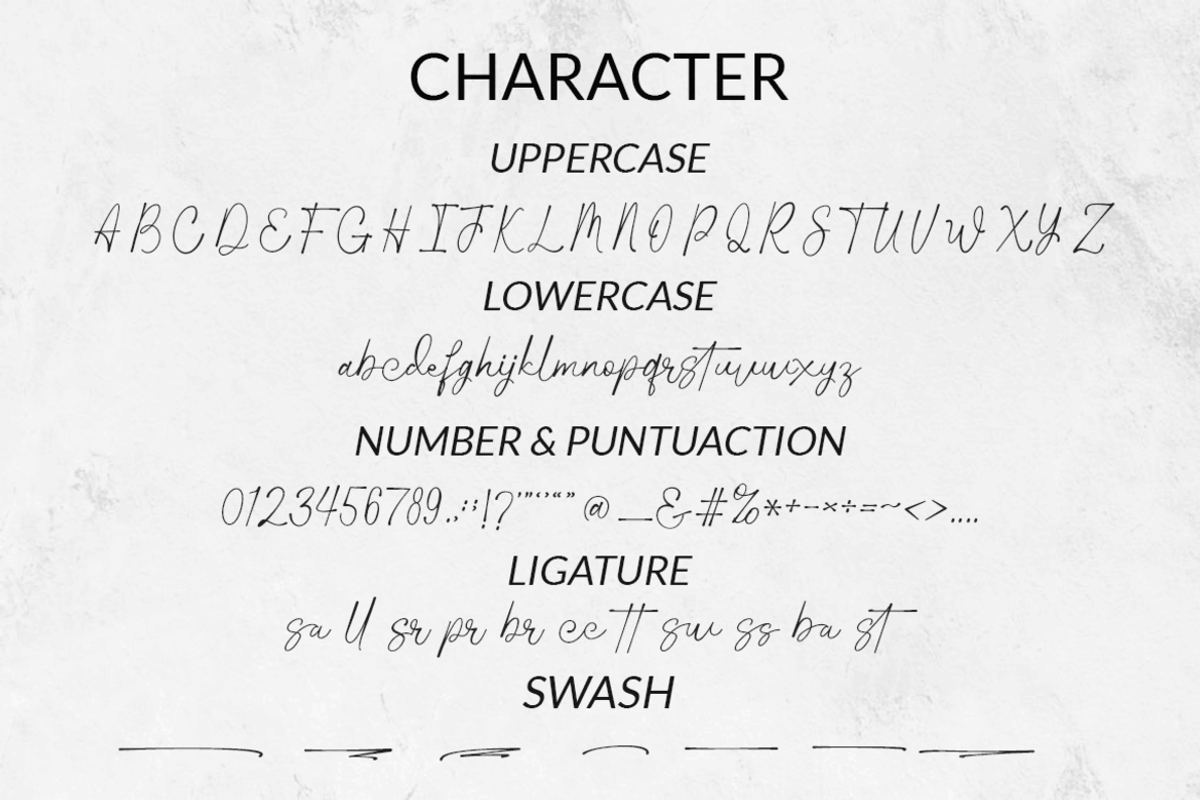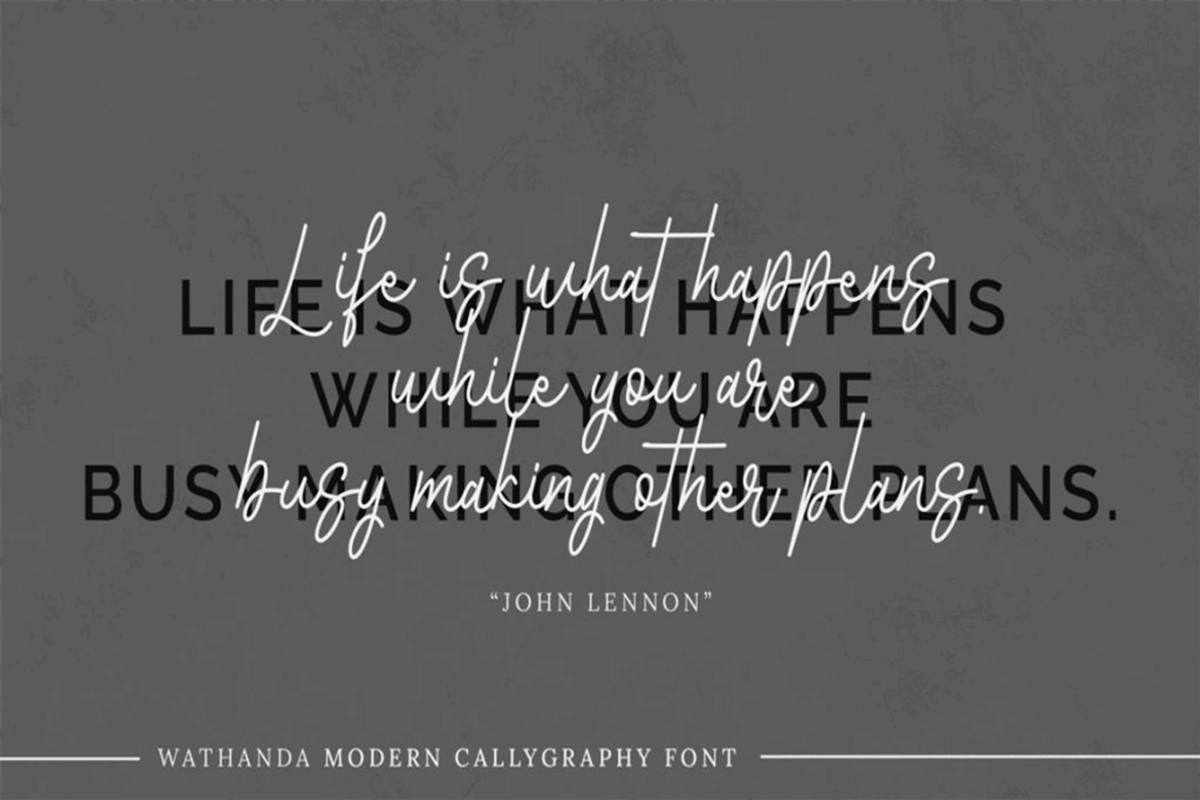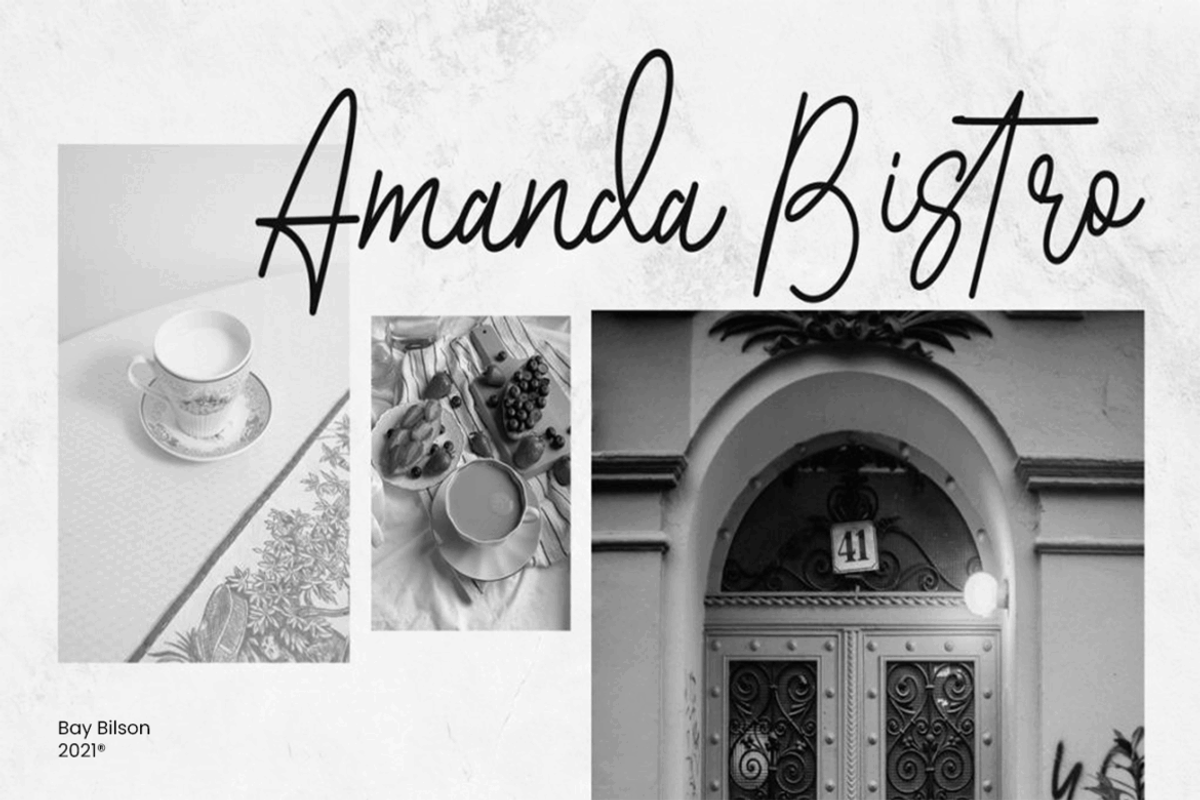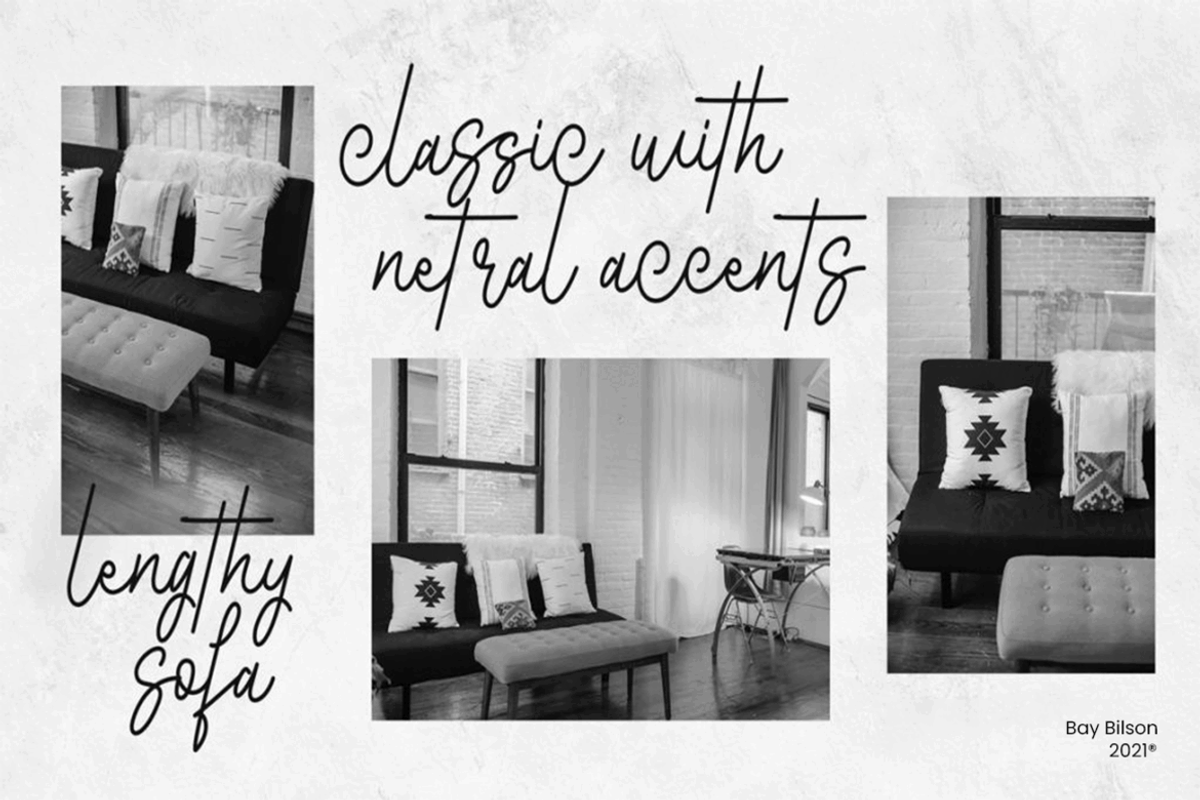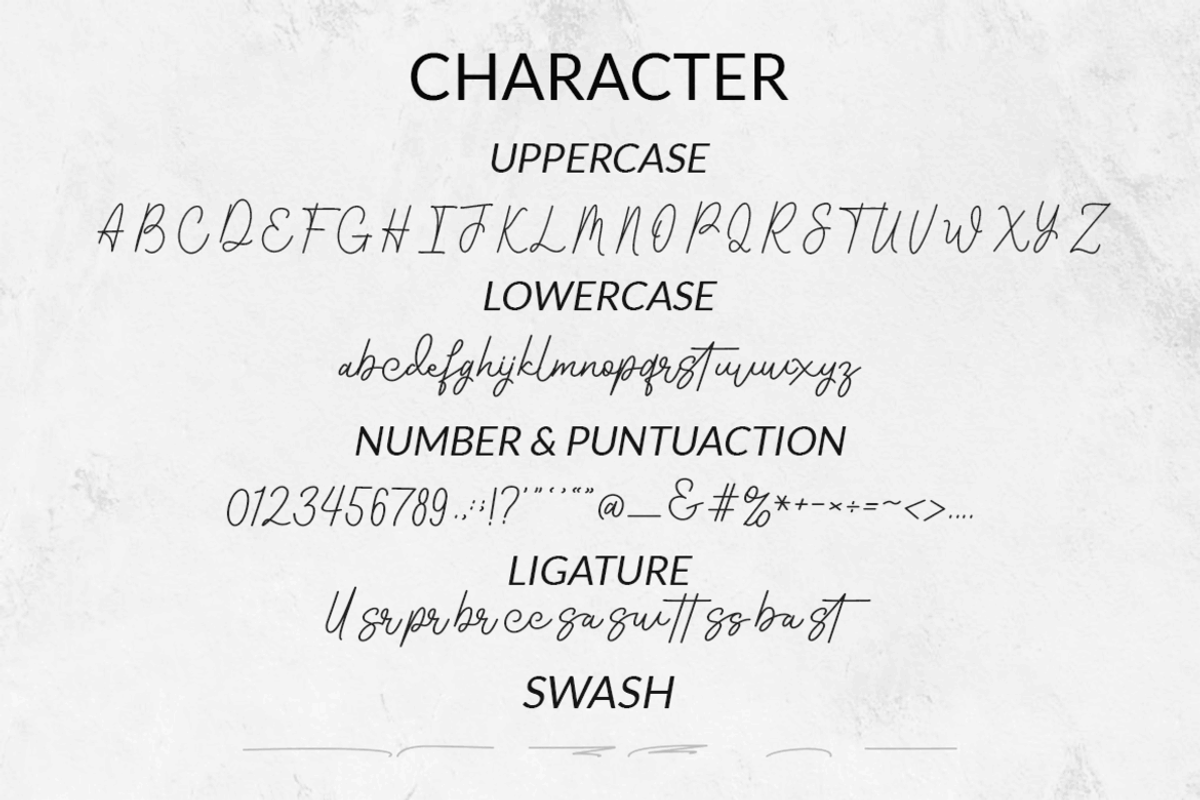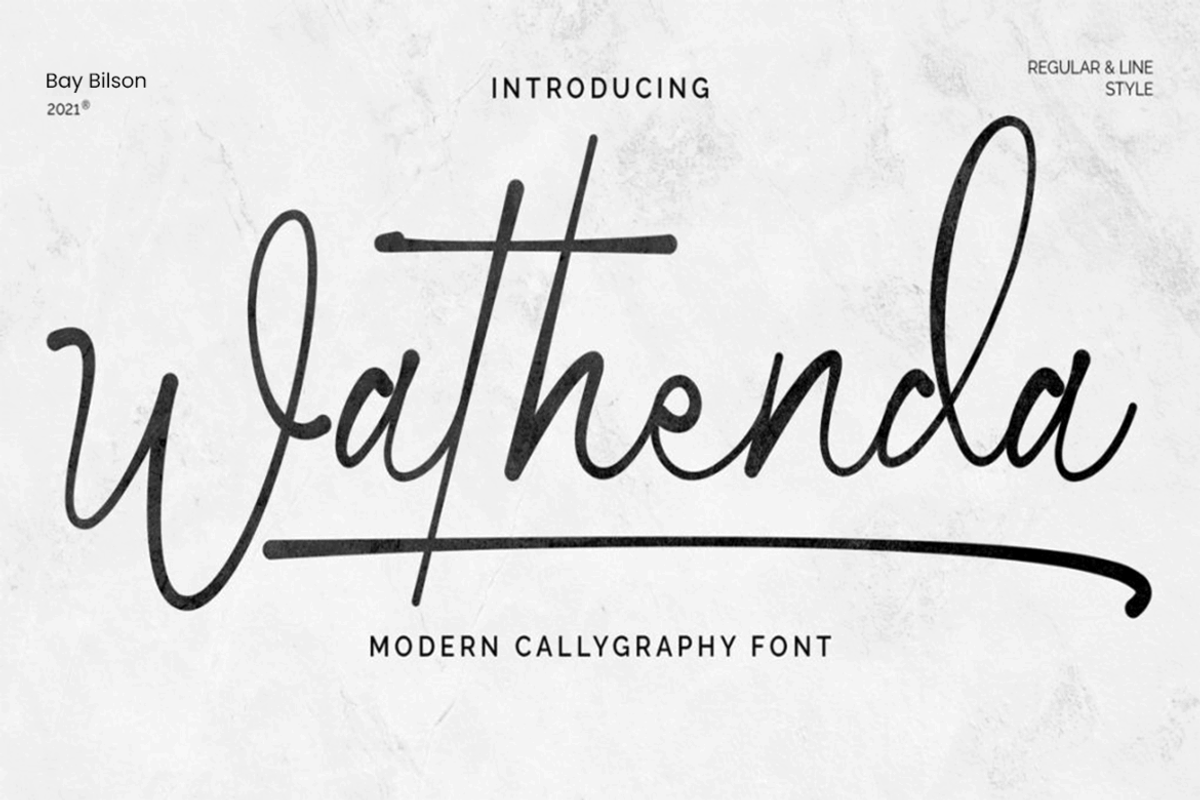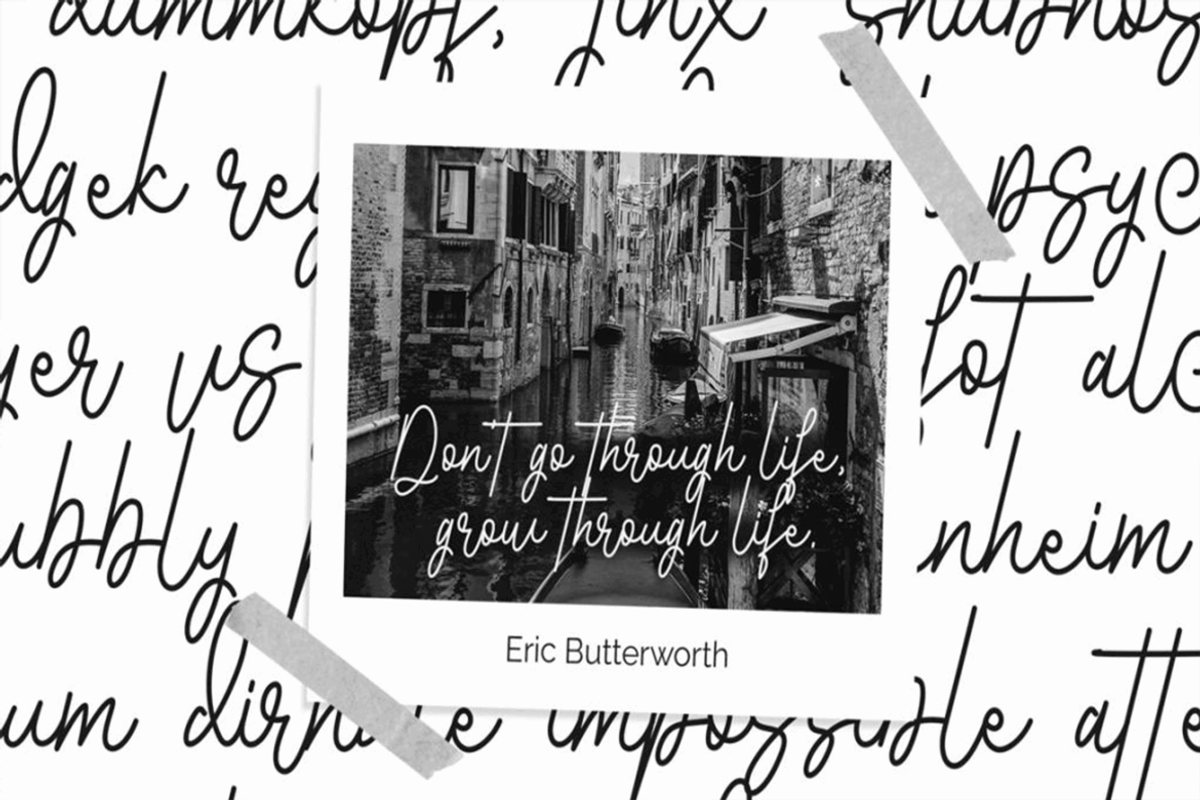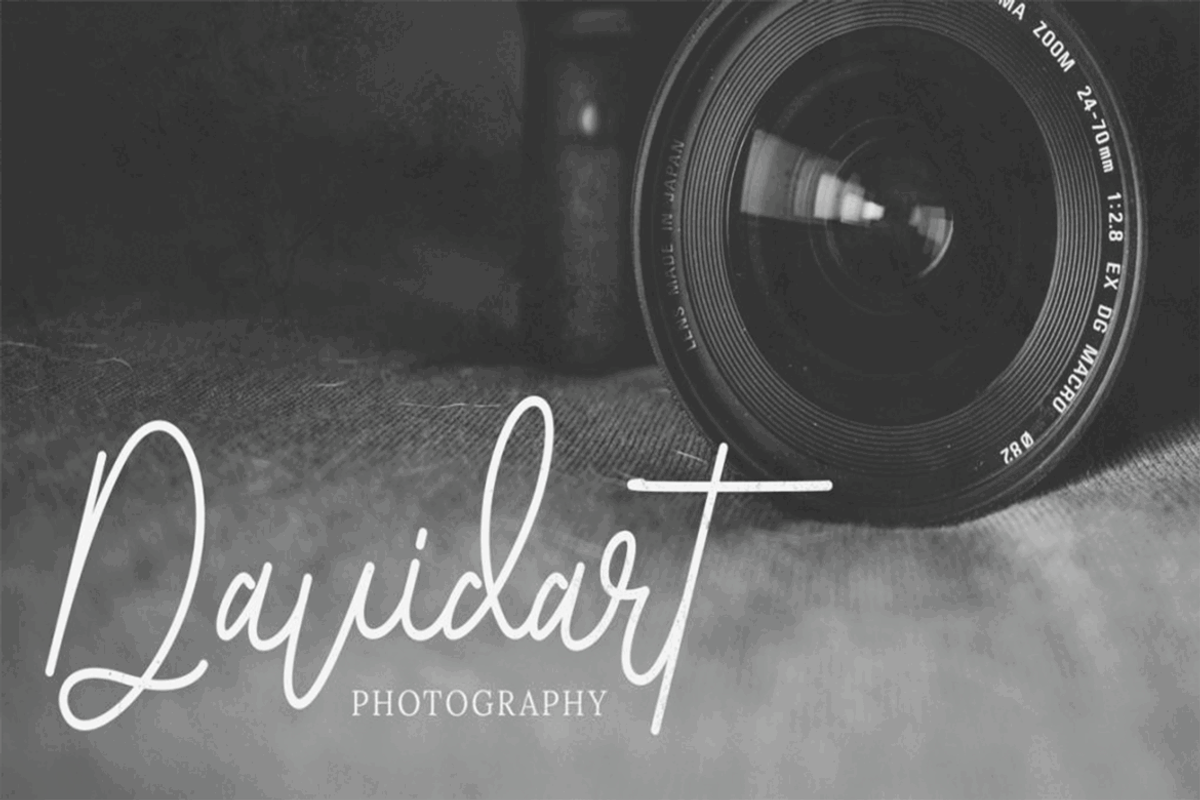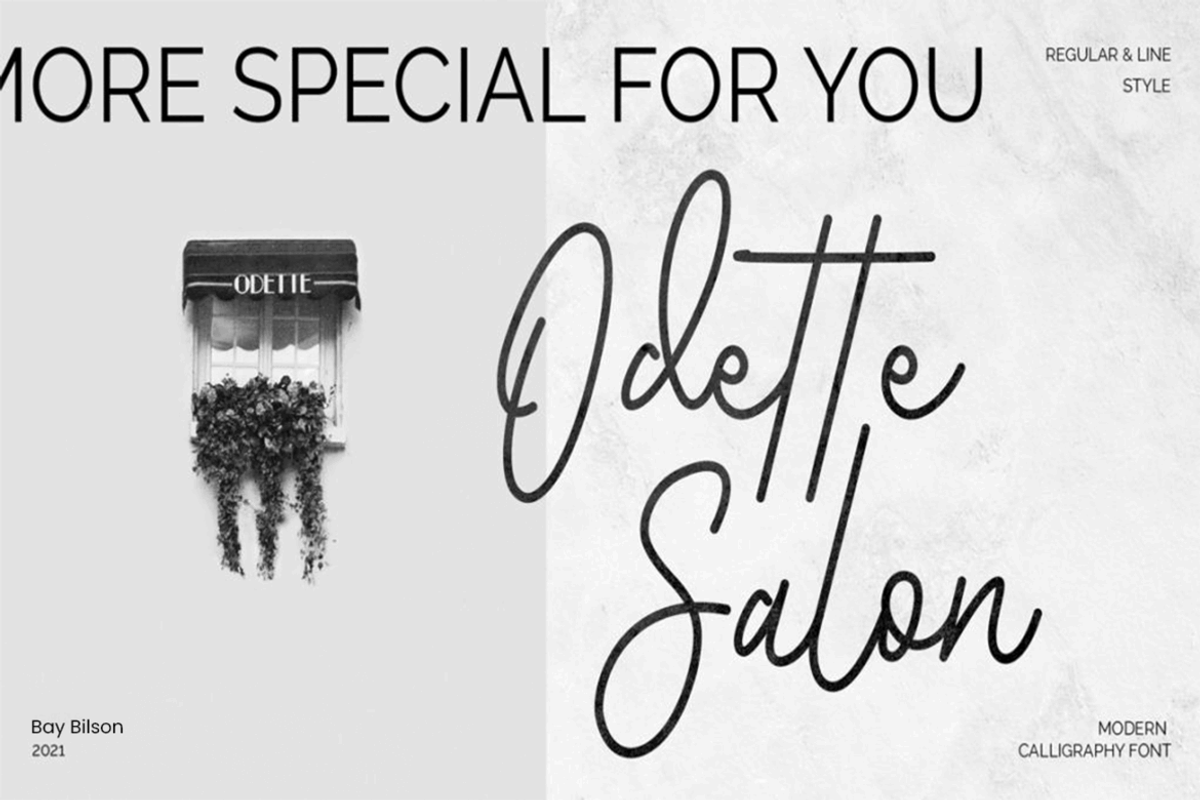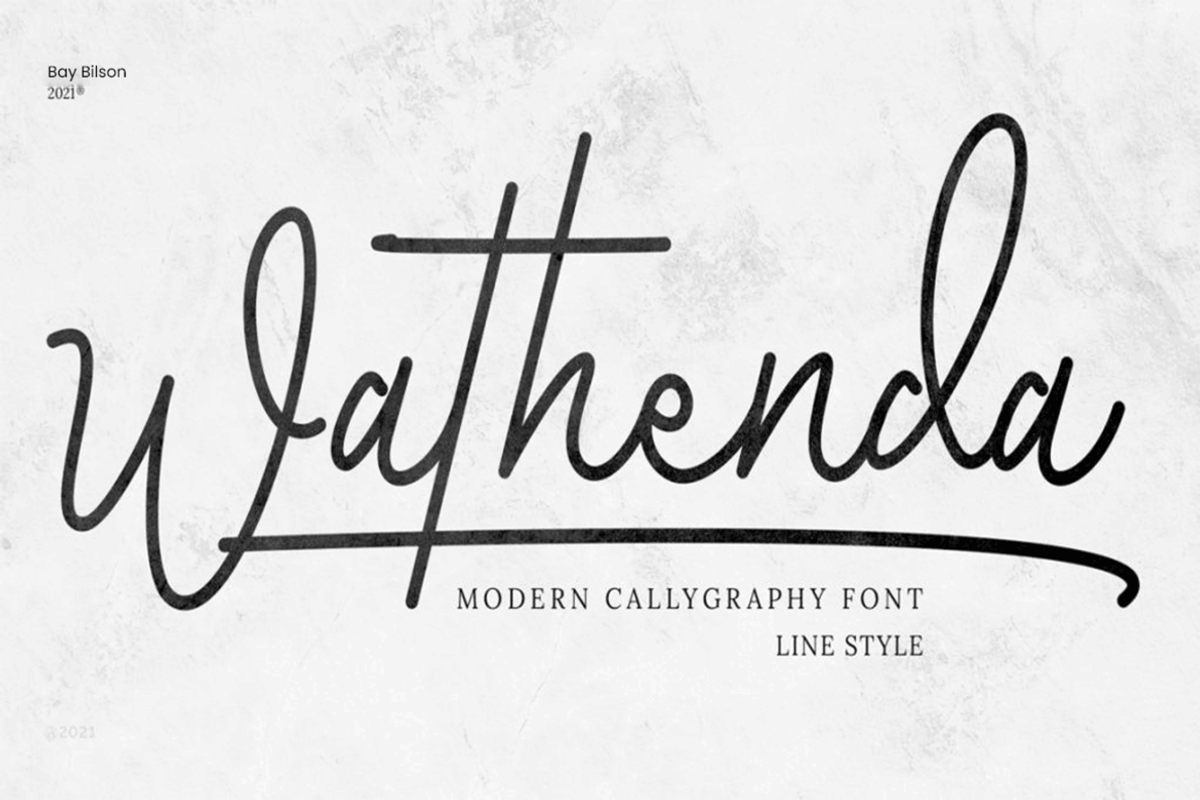
Wathenda Chic Calligraphy
Wathenda is a beautiful handwritten font with a feminine touch and a luxurious impression. This font is suitable for brand logos, invitations, marketing content, and more! Wathenda is PUA encoded which means you can access all the glyphs and ligatures with ease!
-Full alphabet with Uppercase and Lowercase A-Z for script
-Numbers for all fonts
-Punctuation and symbols for all fonts
-Ligature Lowercase script
-Multilingual support all fonts